Font Typesetting Function 15: “Expert Forms (expt)”
I would like to talk about an item called “Expert Forms” in the Form Panel Menu of Illustrator and InDesign – what is it? To put it as simply as I can without using technical terms, “Expert Forms” is probably a glyph with the root of the character set formulated and implemented with the intention of “outputting the correct type, not simplified form,” while the JIS character code standard used many simplified forms in the past.
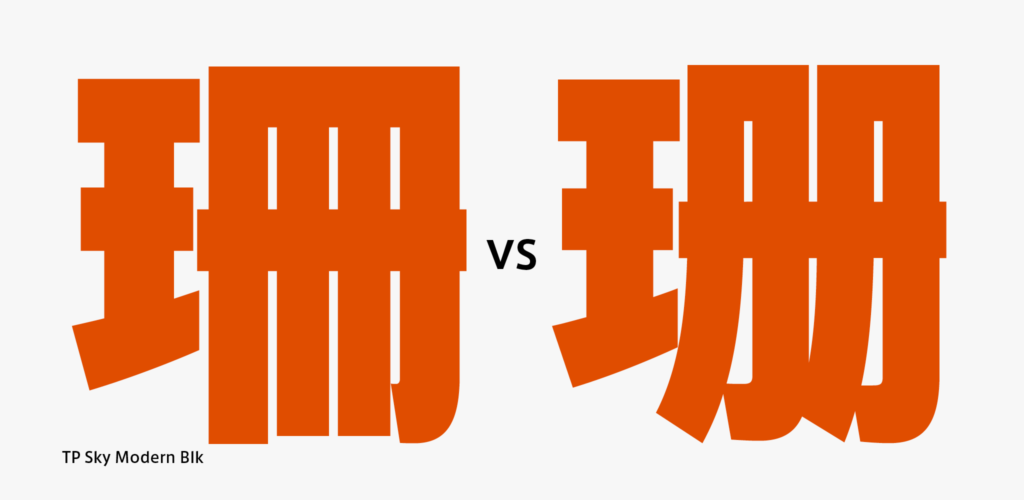
The figure indicates some of the variations for the character “珊” (san) for “珊瑚” (sango). The expert form is indicated on the right. As the type on the left is included in the list of 1,022 non-jōyō kanji (kanji not given in the standard list) commonly used in print in 2000 and the addition of the Jinmeiyō kanji (kanji officially for use in names) in 2004 afterward, there won’t be any occasions to see or use the type on the right in the future. However, I saw this variation often in books when typesetting. Apart from what it is in the origin of a character and the source, personally, I simply like its good-looking shape.